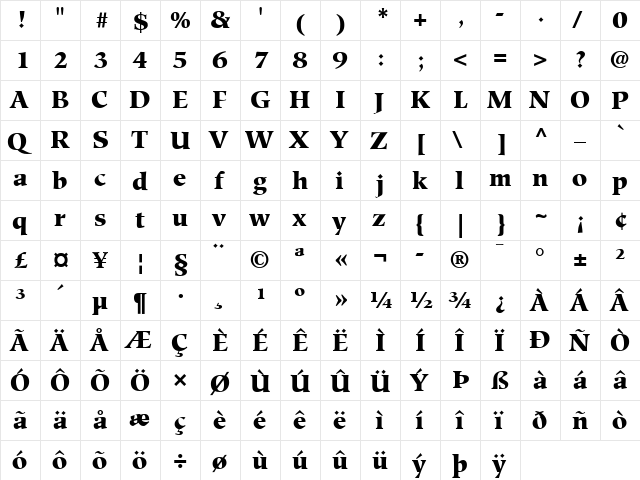
Hiroshige LT Medium Bold Font Preview
Hiroshige LT Medium Bold
Design Context for Hiroshige LT Medium Typeface
Hiroshige LT Medium takes a measured approach to typography — its balanced proportions and neutral character make it a reliable workhorse for both digital and print work. Its bold stroke weight gives it real presence on the page.